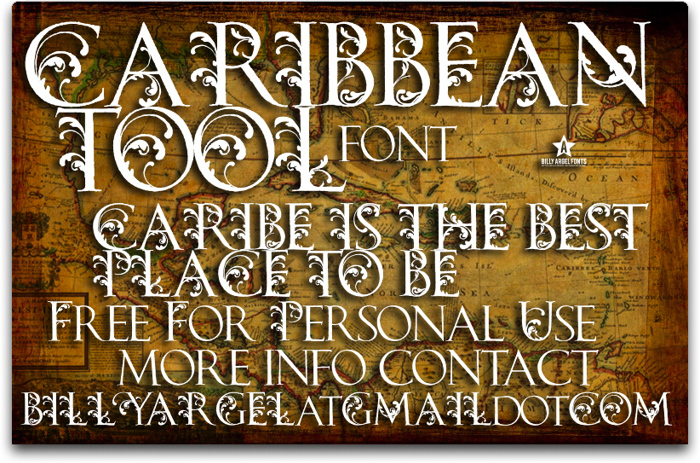
CARIBBEAN TOOL Font
almost 14 years agostunningly beautiful 😉
almost 14 years agoi love this is beautiful
almost 11 years agovintage font
10 years agoi really like this font
almost 8 years agoIts so beautiful!
this is beautiful